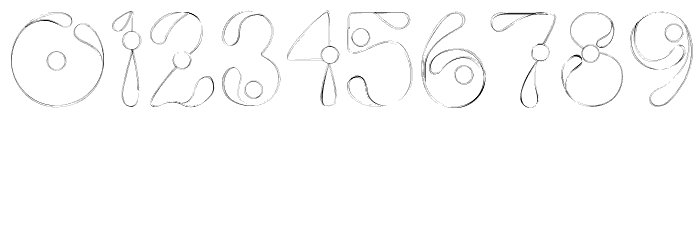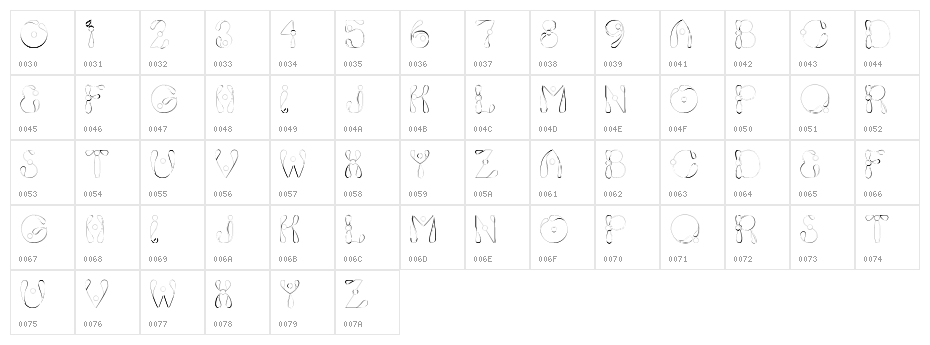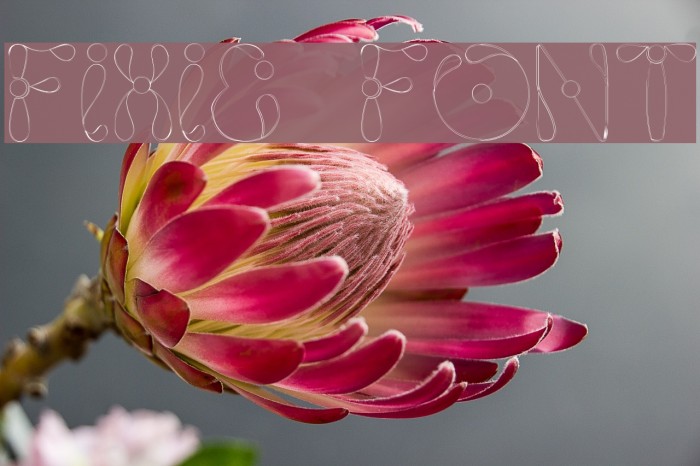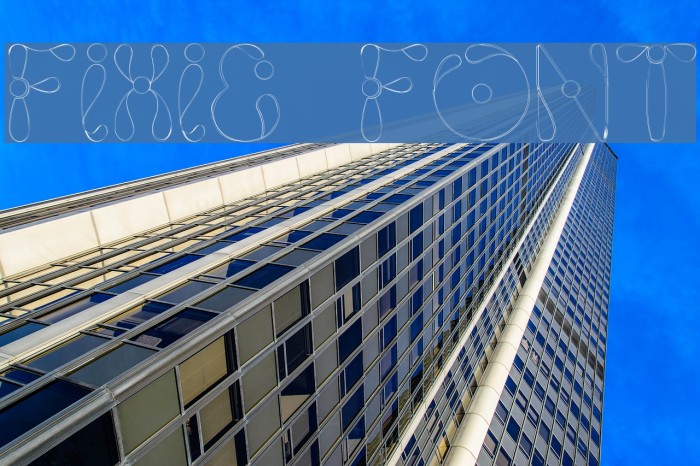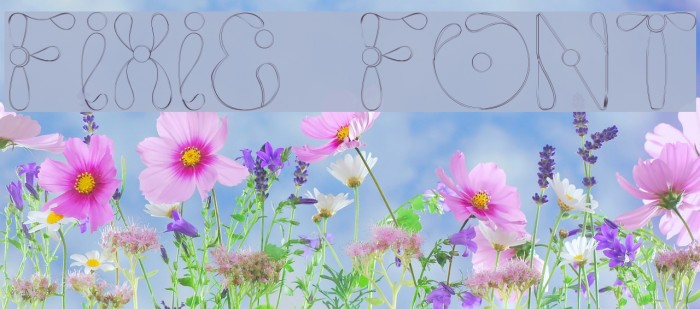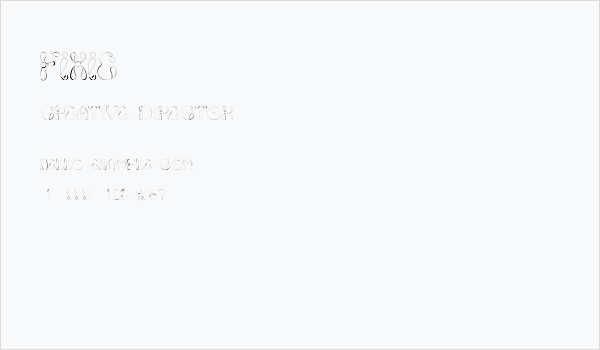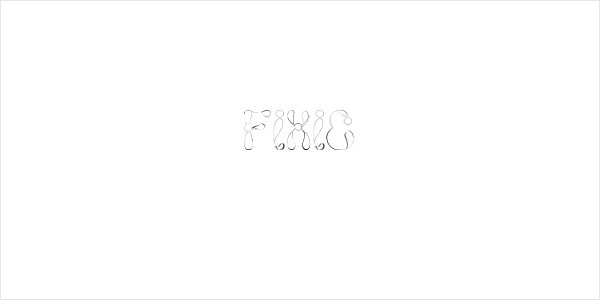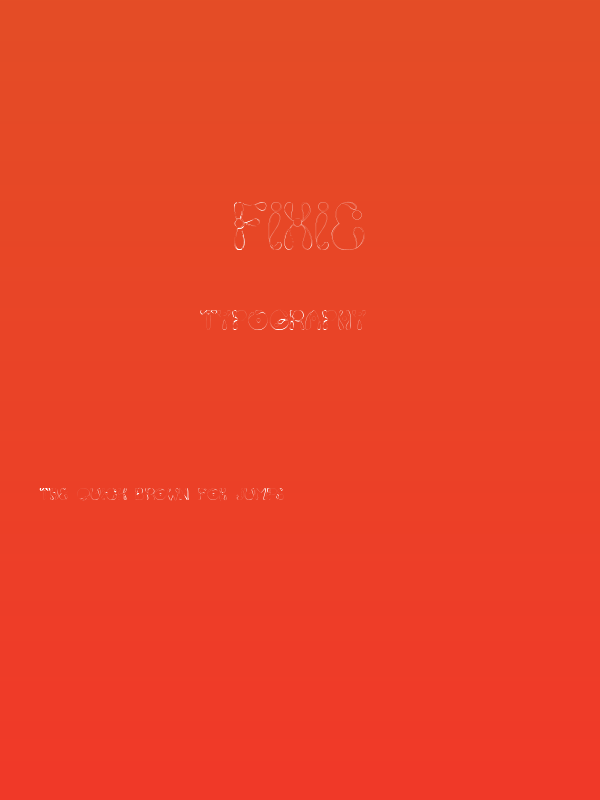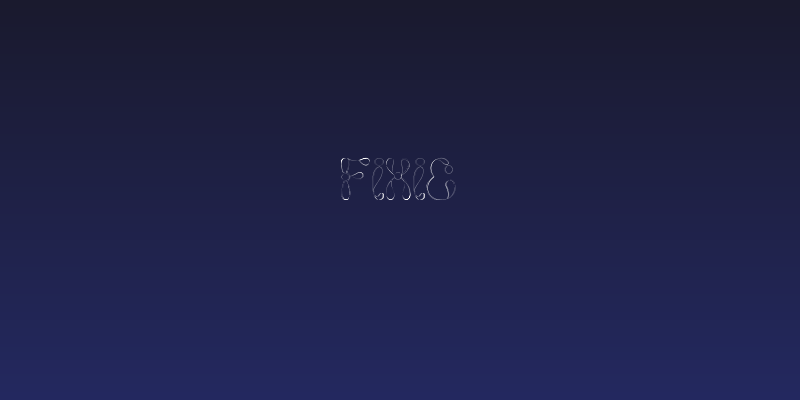
Fixie Font
Fixie Description
This font features a unique, artistic design with a playful and whimsical style. Each character is crafted with a combination of loops and curves, creating an intricate and decorative appearance. The letters have a consistent flow, with rounded edges and a sense of movement that adds a dynamic quality to the text. The numbers and special characters follow the same design principles, ensuring a cohesive look across all elements. This font's distinctiveness makes it stand out, offering a creative flair that is both modern and artistic.
Overall StyleArtistic and playful
Use CaseLogos, Posters, Invitations
Proposed ProjectsIdeal for creative projects such as children's books, playful branding, artistic posters, and unique invitations.